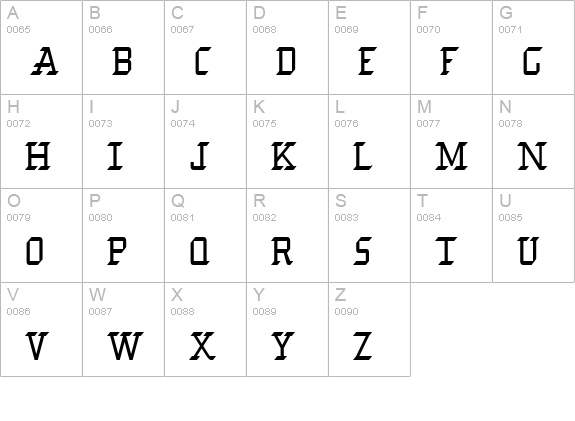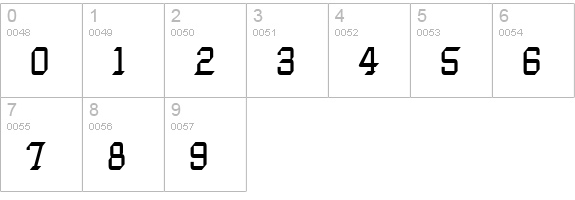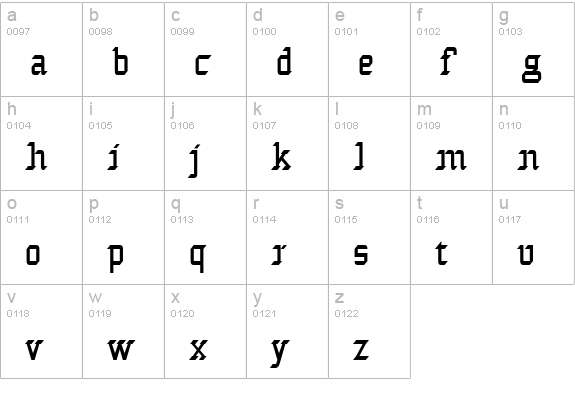
CoronationScot Font Details
CoronationScot is a classic and elegant font that exudes sophistication and charm. Its timeless appeal makes it perfect for a wide range of design projects, from invitations to branding to editorial layouts. The font features clean lines and delicate curves that give it a refined and polished look. What makes CoronationScot even more appealing is that it is available for free download at FontsMarket.com. This means that you can easily access this beautiful font and use it in your projects without any cost. Whether you're a professional designer or a hobbyist looking to elevate your creations, CoronationScot is a fantastic choice that won't break the bank. With its versatility and timeless aesthetic, CoronationScot is sure to become a staple in your font collection. Download it for free today and add a touch of elegance to your designs.